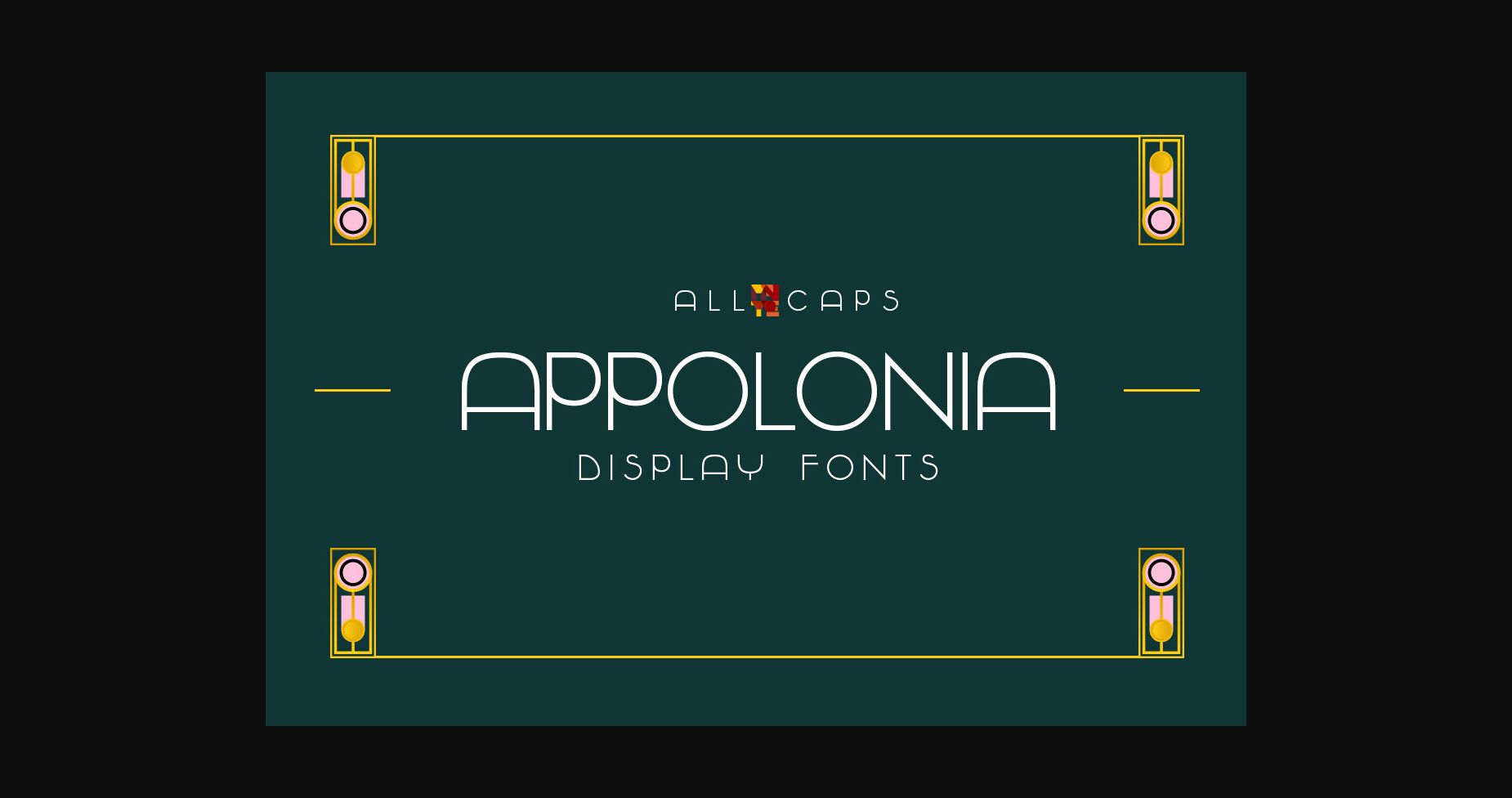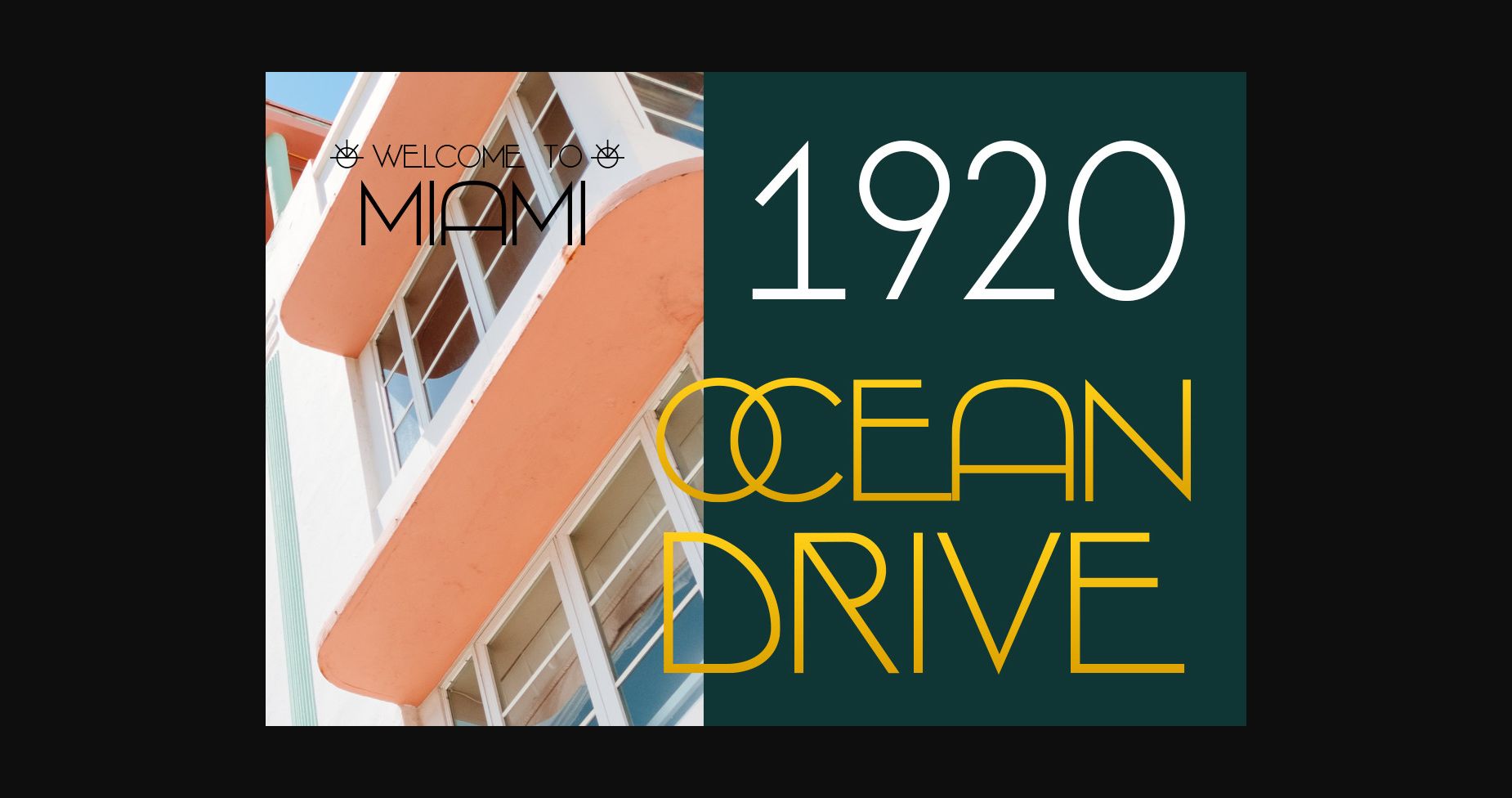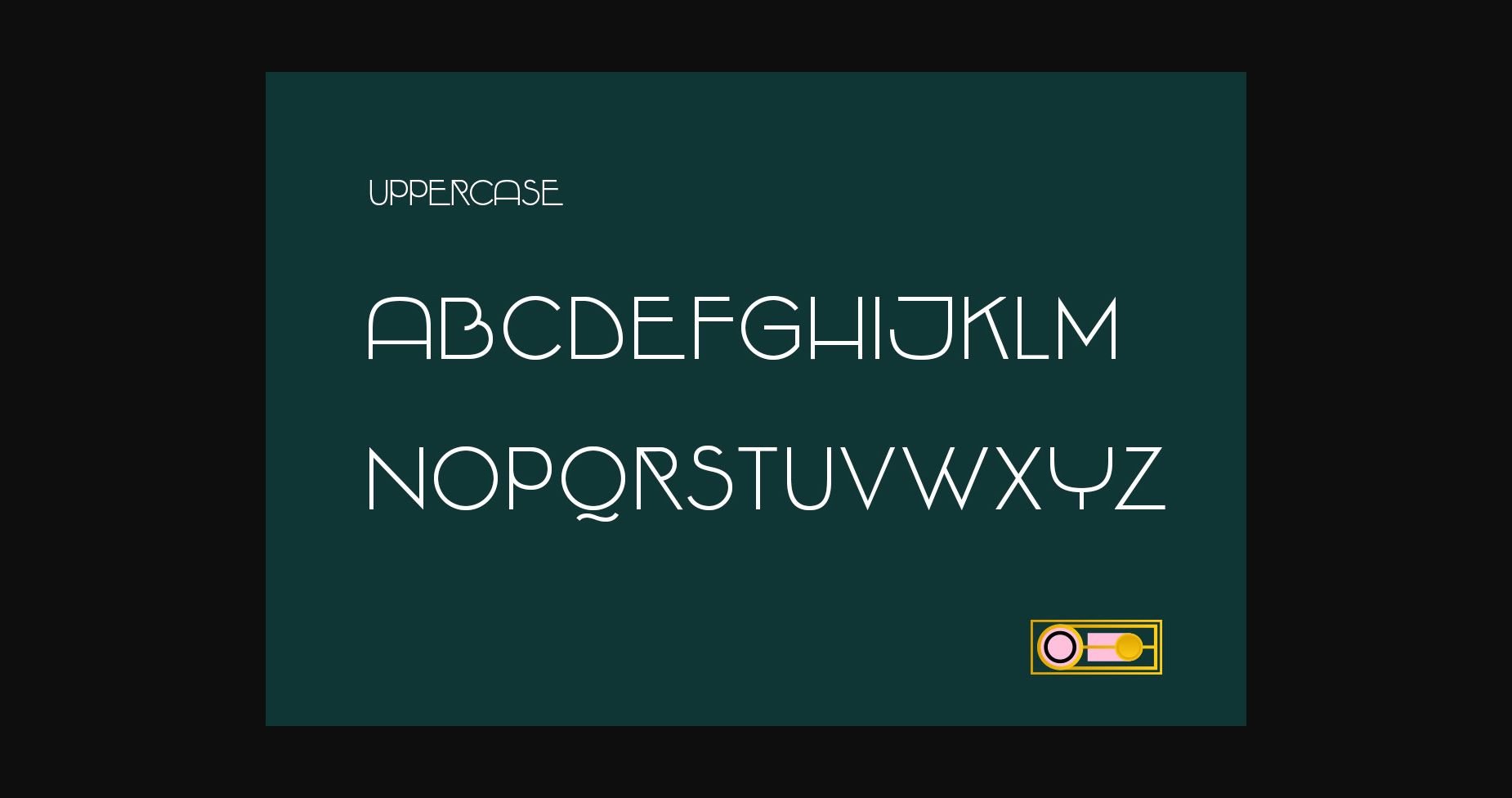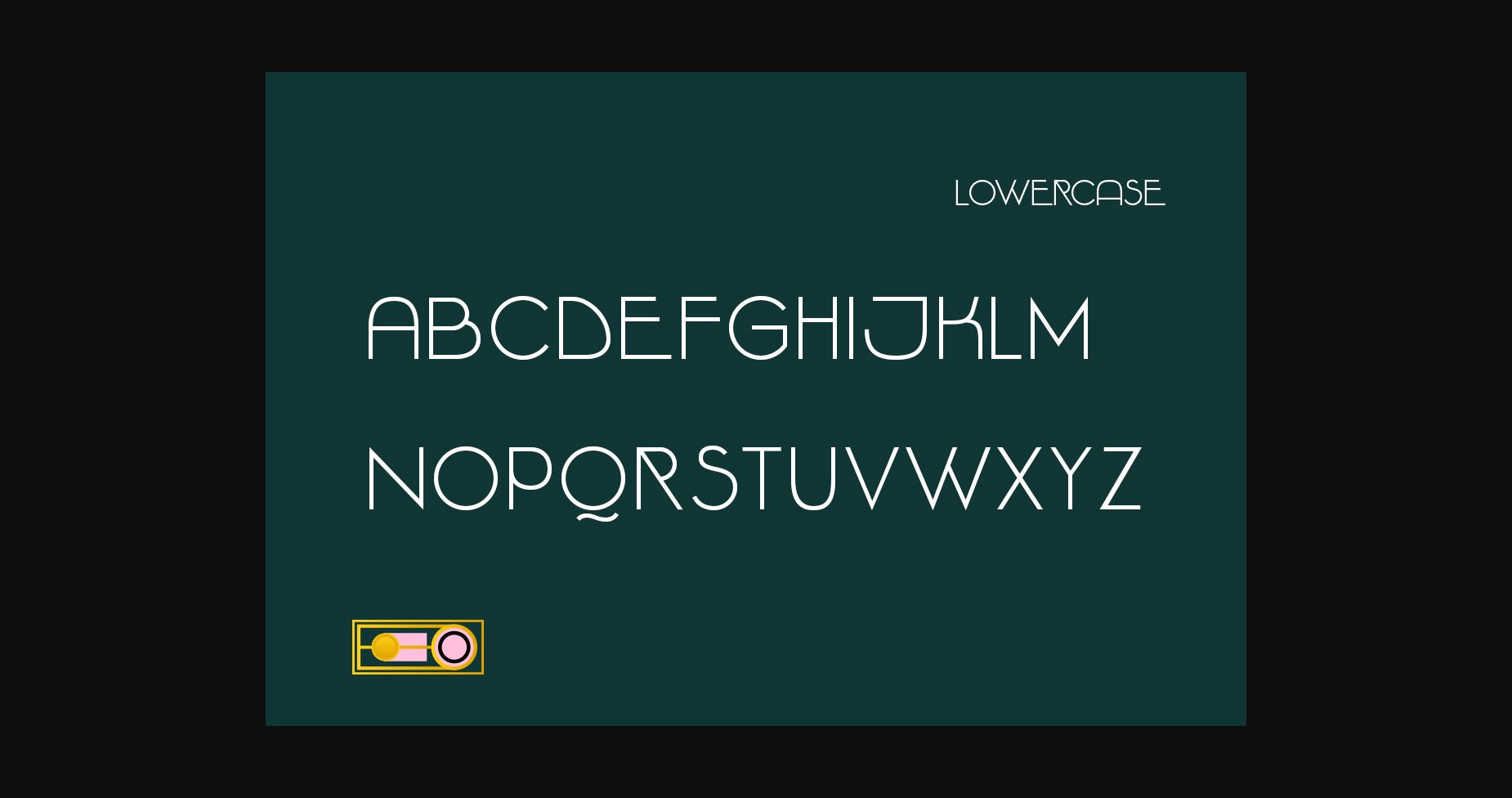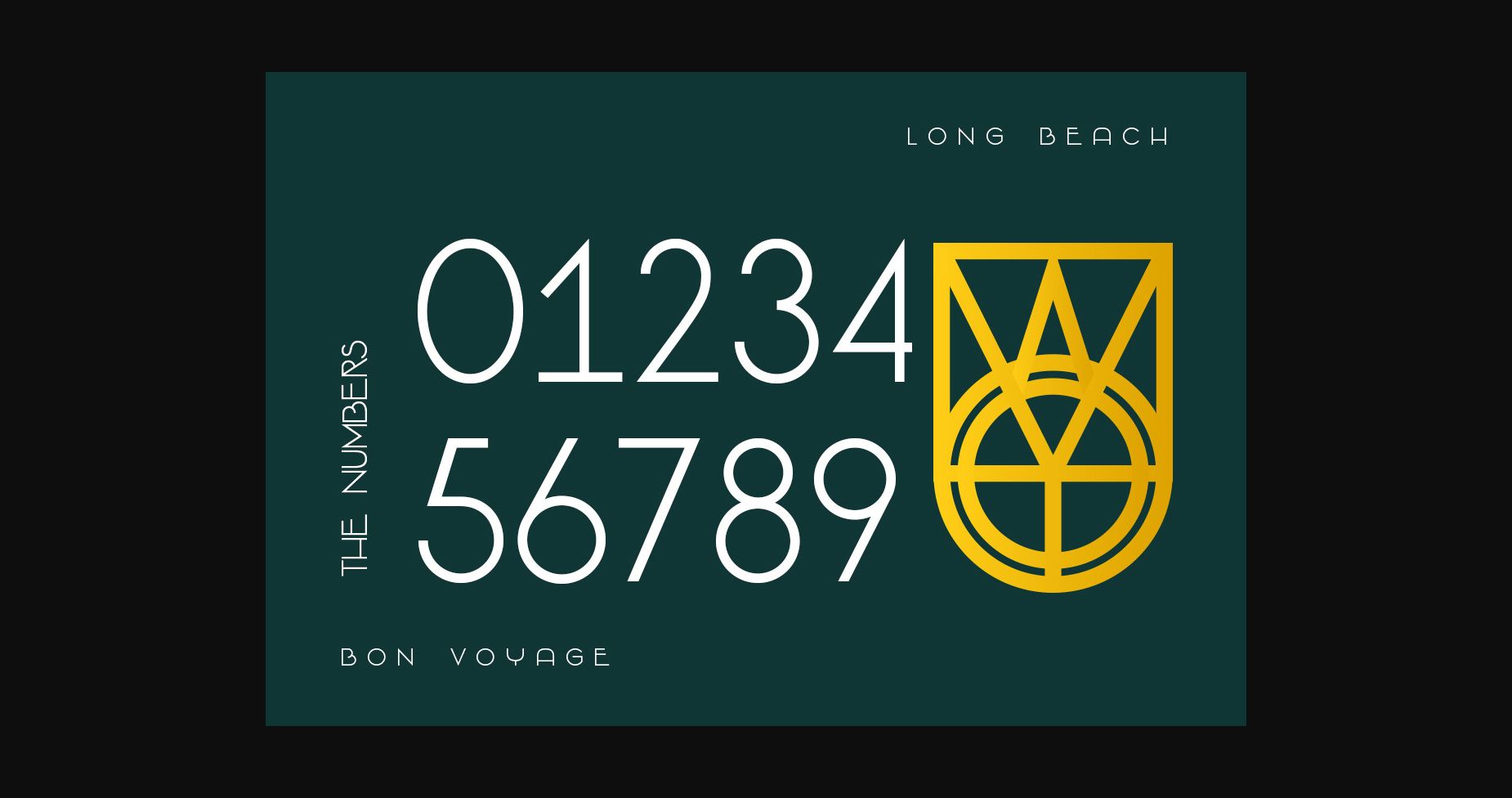
About Appolonia Font
Appolonia is an exquisite, romantic, and minimalist sans serif font. It makes your designs feel more authentic and modern, and it can elevate the look of any crafty idea!